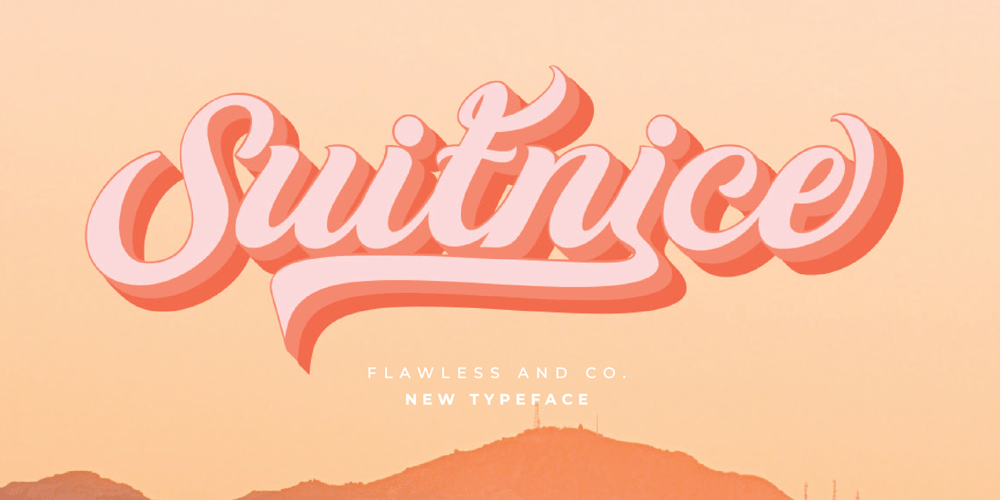
Suitnice Font Family was designed by Achmad Yani and published by Flawlessandco. Suitnice contains 2 styles and family package options. Suitnice is a retro font type with a fun and bold style that is a perfect fit for your retro vintage-themed projects. Try out some alternate characters for another visual result!There’s some connected letters and some alternates suitable in graphic design projects such as branding materials, t-shirt, print, business cards, logo, poster, t-shirt, photography, quotes etc.These fonts have multilingual support, and alternate characters.